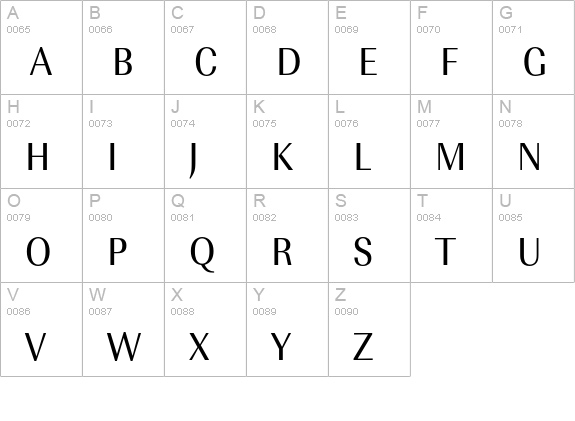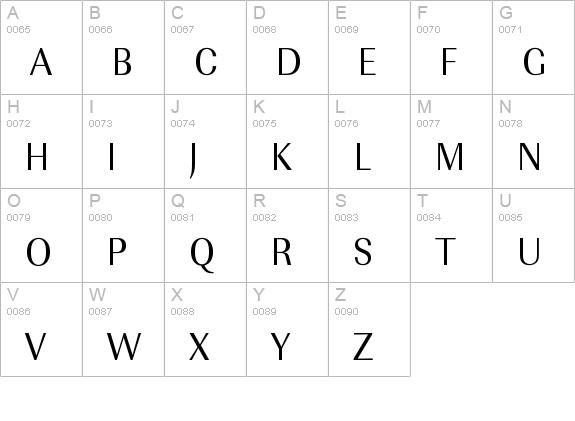
URWImperialTOTExtNar font is a modern and elegant typeface that exudes sophistication and style. With its sleek lines and sharp edges, this font is perfect for adding a touch of class to any design project. Whether you are creating a logo, poster, or website, URWImperialTOTExtNar font will elevate your project to the next level. The best part about URWImperialTOTExtNar font is that it is completely free to download! You can easily access this stunning font at FontsMarket.com and start using it in your designs right away. Don't miss out on the opportunity to enhance your projects with this beautiful and versatile typeface. Download URWImperialTOTExtNar font today and take your design to new heights!